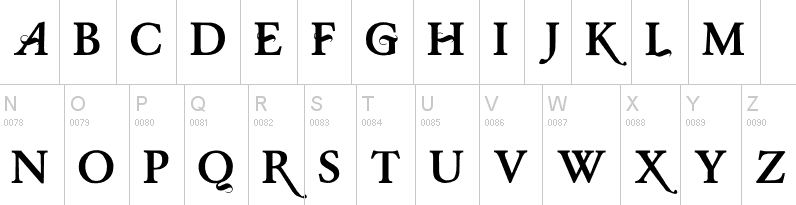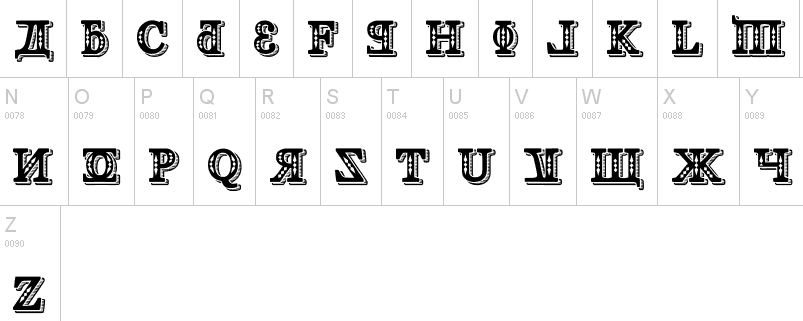
Bolt Cutter Design (or: Mahoney Fine Arts)
Creators in 2008 of a series of detailed free fonts: Eutemia (connected calligraphic script), Deborah Extra Ornaments, Prozac Buzz (grungy and neurotic), Phat Grunge Bold, Metal Macabre (scary), Kremlin-Advisor-Display-Kaps-Bold, Kremlin-Samovar-Extra-Bold, Kremlin-Samovar, KremlinAlexander-Bold, KremlinBolshevik-Bold, KremlinDuma-Bold, KremlinEmpire, KremlinGeorgianI3D, KremlinGrandDuke, KremlinKiev, KremlinOrthodoxChurch, KremlinStarets (all Cyrillic simulation typefaces), Deborah Fancy Dress (saloon font), Deborah (1880s style). Full list, at the end of 2008: AngstRidden (angst-ridden handwriting, dated 2002 under the label Mahoney Fine Arts), Bolt-Cutter-Light, Bolt-Cutter-Nasty, Bolt-Cutter, CSAR-Italic, CSARVESTMENT (illuminated caps), Bloody Irish Bastard or Congeal (2001), Deborah (Western), DeborahCondensed, DeborahExtrasOrnaments, DeborahFancyDress, Dominatrix, EutemiaI-Italic, EutemiaII-BoldItalic, EutemiaIII-BoldItalic, EutemiaOrnaments, GeneticEngine, GideonPlexus, KREMLINMINISTRY-DemiBoldItalic, Kremlin-Advisor-Display-Kaps-Bold, Kremlin-Samovar-Extra-Bold, Kremlin-Samovar, Kremlin-Soviet-Italic, Kremlin-Tsaritsa-Italic, Kremlin, KremlinAdviser, KremlinAlexander-Bold, KremlinBolshevik-Bold, KremlinComrade, KremlinCzar, KremlinDuma-Bold, KremlinEmperor-Bold, KremlinEmpire, KremlinGeorgianI3D, KremlinGrandDuke, KremlinImperial, KremlinKiev, KremlinKommisar, KremlinKourier-II, KremlinKourierII-Bold, KremlinMenshevik-BoldItalic, KremlinMinister-Black, KremlinMinister-Bold, KremlinMinister, KremlinMinisterBlack3D-Bold, KremlinOrthodoxChurch, KremlinPravda-Italic, KremlinPravda, KremlinPremier, KremlinStarets, KremlinSynod, MarquisDeSade, MarquisDeSadeAlternates, MarquisDeSadeOrnaments, Kremlin Chairman, Metal-Macabre, NewSymbolFont, ODINS-SPEAR-HOLLOW (2002, runes), ODINS-SPEAR (runic), OurSacredRights-Bold, PhatGrunge-Bold, Precious (calligraphic), StarmanCrusader, TEK-HED-AGGRESIVE (the TEK (techno) series is from 2003), tEK-HED-ANGRY, TEK-HED-BOLIMIC, TEK-HED-LAZY, TekHedRegular, ThorsHammerCarved (2008, chiseled look), csar, csarparadedress. Fonts from 2009: Vlad tepes II (creepy). Fonts from 2010: Sarcophagus. Fonts from 2012: Baris Cerin (a bastardized Garamond caps face). Fonts from 2013: Precious (connected formal script). Fontspace link. Open Font Library link for Tyler Schnitzlein. |